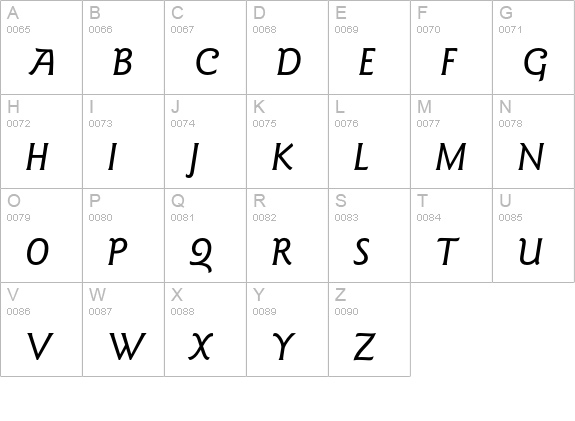
Introducing GoudySansEF-MediumItalic font, a versatile and elegant typeface that strikes the perfect balance between modernity and sophistication. With its medium weight and stylish italics, this font exudes a sense of refined charm that is perfect for a wide range of design projects. The GoudySansEF-MediumItalic font is designed to bring a touch of class to any layout, whether it's for branding, editorial design, or web graphics. Its fluid curves and subtle slant create a dynamic and engaging visual presence that is sure to captivate your audience. Best of all, the GoudySansEF-MediumItalic font is available for free download at FontsMarket.com. This means you can elevate your design projects without breaking the bank, making it a valuable addition to any designer's toolkit. Don't miss out on the opportunity to enhance your creations with this exquisite and freely accessible font.